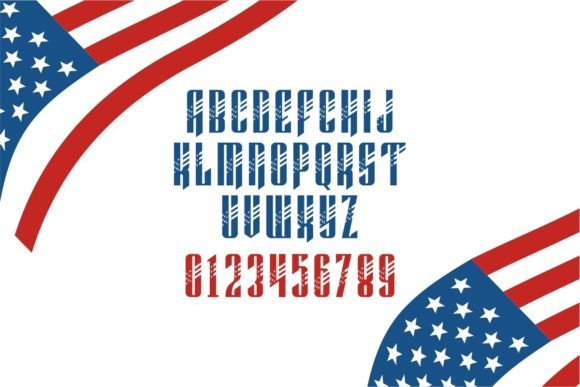
A Patriotic Call Font: Embodying the Spirit of National Pride
In the realm of typography, few fonts capture the essence of patriotism as vividly as A Patriotic Call. This spirited decorative font is a visual celebration of national pride, proudly showcasing the stars and stripes that are synonymous with American patriotism. With its unique integration of these iconic symbols into the letters, A Patriotic Call is the ideal choice for designers and crafters looking to evoke a sense of unity and loyalty in their projects.
The Essence of A Patriotic Call
A Patriotic Call is more than just a font; it’s a statement piece. Its design is deeply rooted in the symbols that represent American patriotism: the stars and stripes. These elements are intricately woven into the letters, creating a visually striking effect that immediately captures the viewer’s attention. The font’s decorative nature makes it perfect for projects that require a bold and expressive display, such as posters, banners, and other patriotic-themed designs.
Versatility and Application
One of the key advantages of A Patriotic Call is its versatility. While it’s specifically designed to convey a sense of patriotism, its decorative nature allows it to be used in a variety of contexts. Whether you’re crafting a poster for a Fourth of July celebration, designing a banner for a patriotic event, or simply looking to add a touch of Americana charm to your project, A Patriotic Call is the perfect choice.
Adding a Touch of Americana Charm
A Patriotic Call brings a unique touch of Americana charm to any project. Its bold and expressive design instantly evokes feelings of national pride and unity, making it an excellent choice for designers and crafters who want to create a lasting impression. The font’s ability to convey a sense of patriotism and loyalty is unmatched, making it a valuable addition to any designer’s toolkit.
Why Choose A Patriotic Call?
There are several reasons why A Patriotic Call stands out as a top choice for designers and crafters:
- Unique Design: The integration of stars and stripes into the letters creates a visually striking effect that’s sure to capture attention.
- Patriotic Appeal: The font’s patriotic theme makes it perfect for projects that require a sense of national pride and unity.
- Versatility: A Patriotic Call can be used in a variety of contexts, from posters and banners to digital designs and crafts.
- Americana Charm: The font adds a touch of classic Americana charm to any project, making it a great choice for designers looking to evoke a sense of nostalgia.
Tips for Using A Patriotic Call
To get the most out of A Patriotic Call, consider the following tips:
- Pair with Neutral Backgrounds: Let the font be the focal point by pairing it with neutral backgrounds that won’t compete for attention.
- Experiment with Colors: While red, white, and blue are classic patriotic colors, don’t be afraid to experiment with other color combinations to create a unique look.
- Use for Headlines and Titles: A Patriotic Call is perfect for headlines and titles, where its bold and expressive design can make a lasting impression.
| Author | Eko Kurniawan |
A Patriotic Call is a spirited decorative font that proudly showcases the essence of patriotism. With its unique integration of stars and stripes into the letters, it’s a visual celebration of national pride that’s sure to evoke feelings of unity and loyalty. Whether you’re a designer or crafter looking to add a touch of Americana charm to your project, A Patriotic Call is the perfect choice. Let your words resonate with the spirit of the stars and stripes – choose A Patriotic Call for your next project.